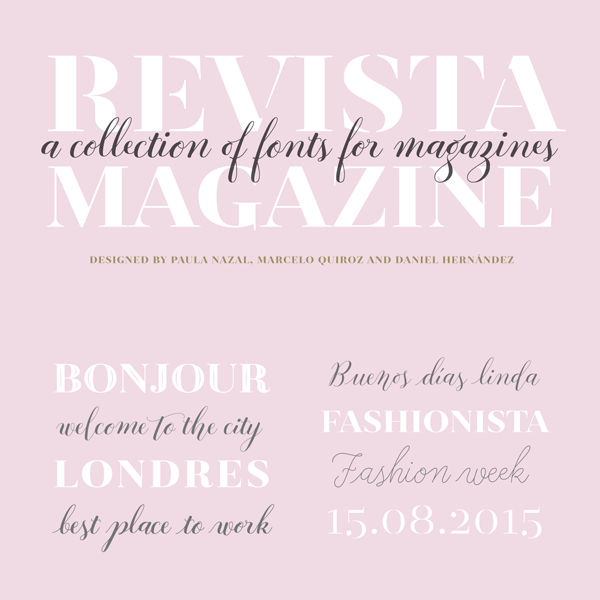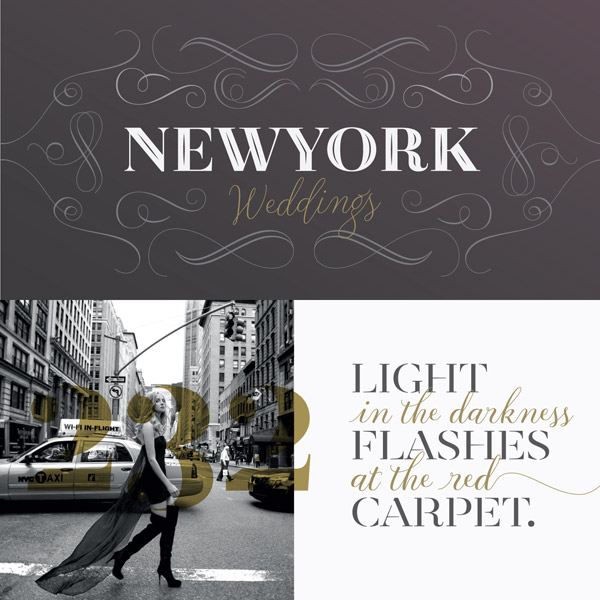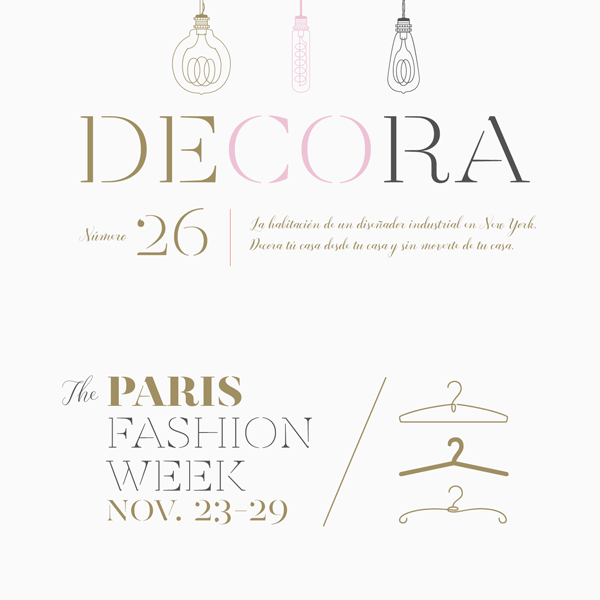
The Revista font collection from Latinotype, a typographic system that combines diverse styles.
Revista is a fashion-inspired font system developed by Paula Nazal Selaive, Marcelo Quiroz, and Daniel Hernández, three experienced designers from the team of Latinotype. The collection brings together a variety of typefaces as well as dingbats and ornaments. Revista includes a Didone family of 4 variants plus Italics, a script family of 5 weights, stencil typefaces, and two sets of dingbats as well as one set of ornaments.